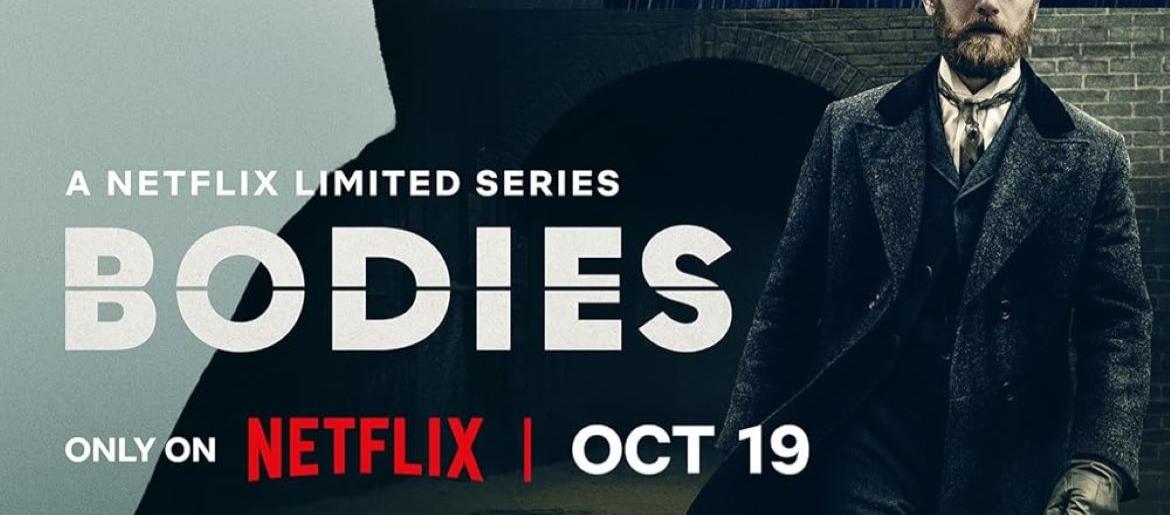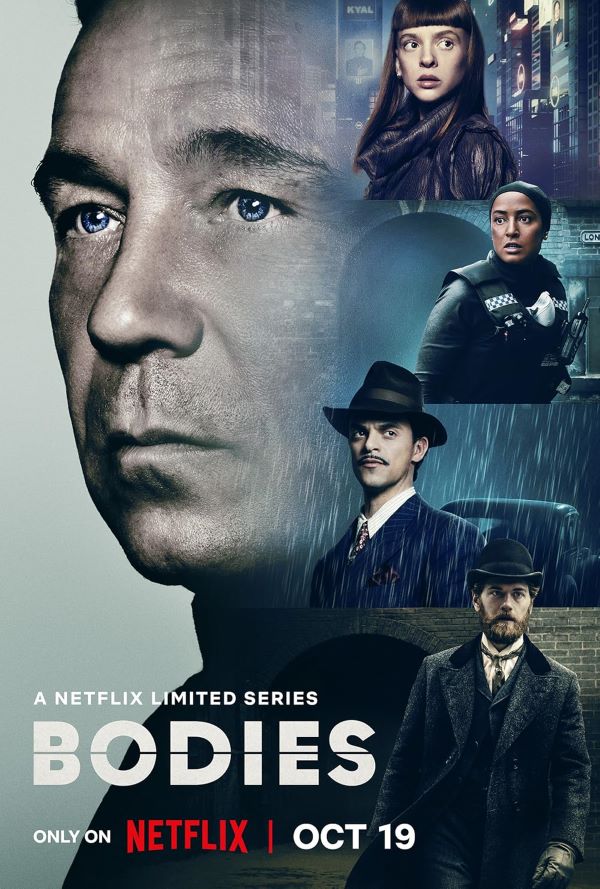
Bodies Font
What Font is Bodies?
Bodies Font carries a dark, investigative tone that mirrors the intricate mystery and time-bending narrative of the series. The font is most likely a modified version of Regulator Nova Alts Heavy, a commercial typeface known for its geometric boldness and modern edge. Its sharp lines and structured form give a sense of tension and precision, perfectly aligning with the show’s themes of crime, conspiracy, and connection across timelines. A free alternative font offers a similar visual presence, making it accessible for fans and designers seeking that same cinematic intensity.
About Bodies
Bodies is a 2023 British crime thriller series on Netflix, created by Paul Tomalin and based on the graphic novel by Si Spencer. The show follows four detectives investigating the same murder across different eras—1890, 1941, 2023, and 2053—revealing a chilling conspiracy that transcends time. Starring Jacob Fortune-Lloyd, Amaka Okafor, Kyle Soller, and Stephen Graham, it blends crime, sci-fi, and psychological drama into a hauntingly original narrative.